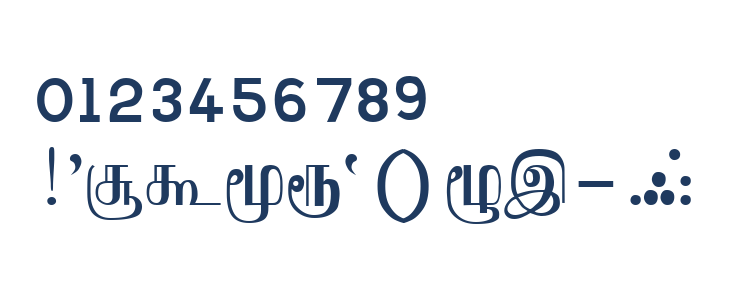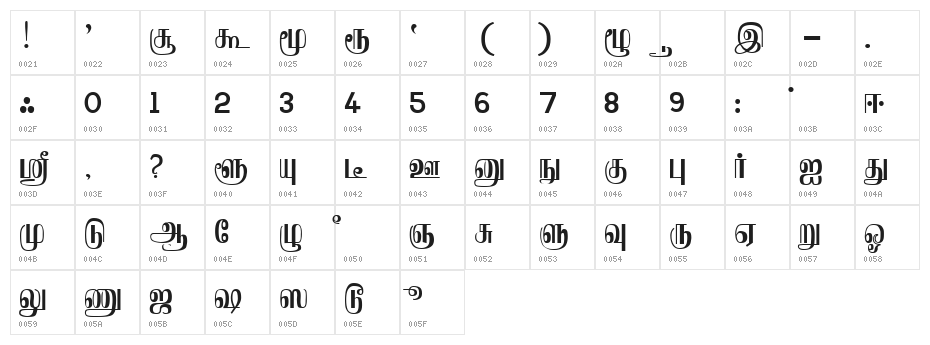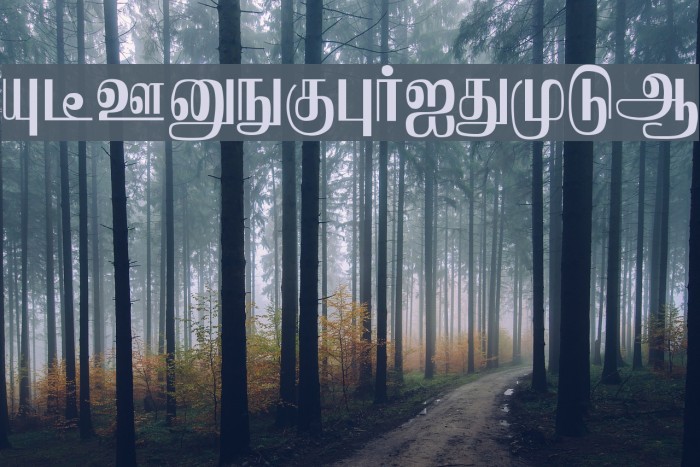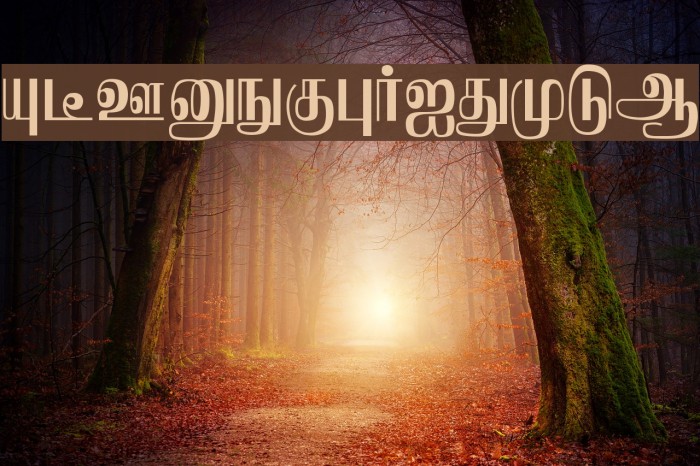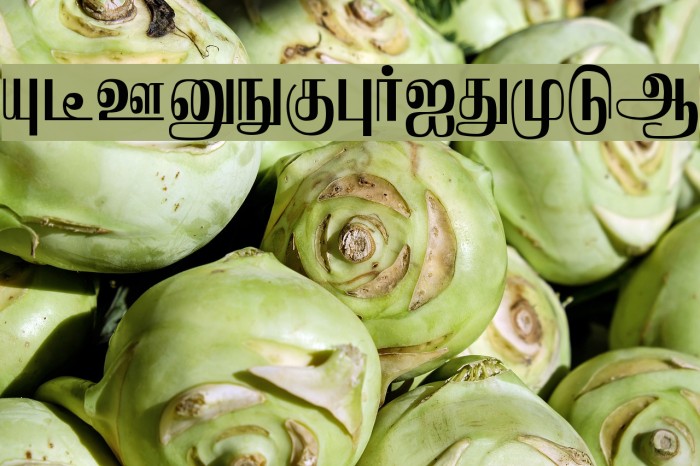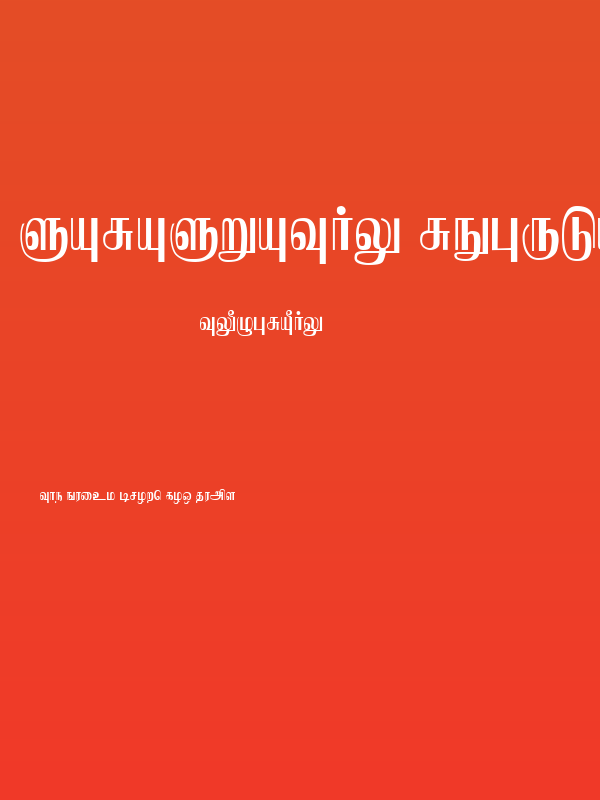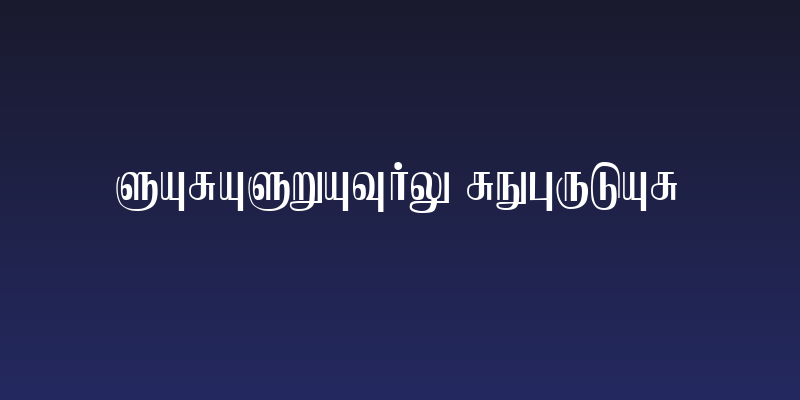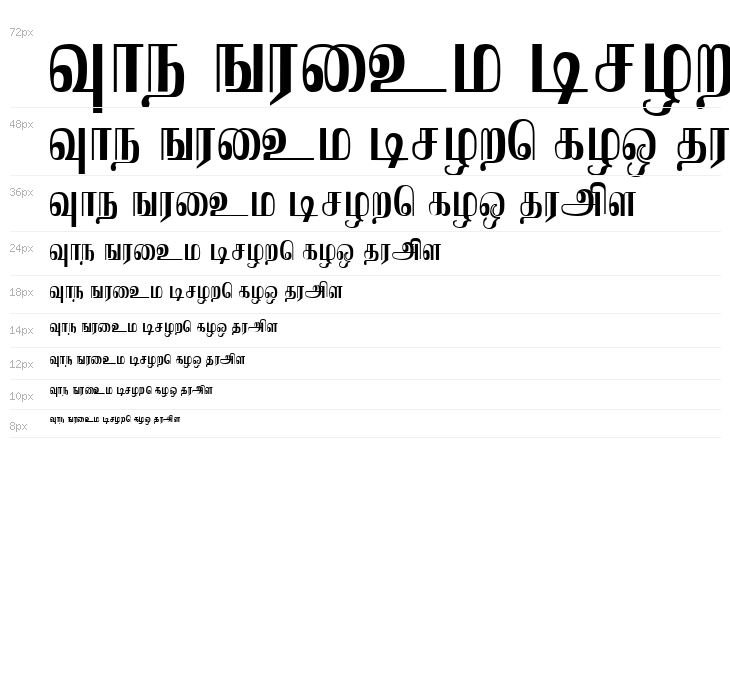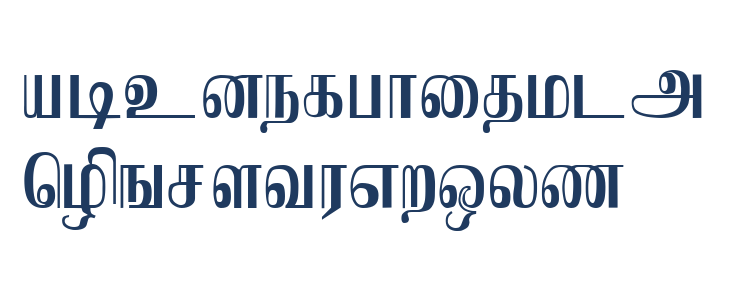
Saraswathy Regular Font
Saraswathy Regular Description
This font features a distinctive and elegant style, characterized by its clean lines and balanced proportions. The characters exhibit a harmonious blend of traditional and modern elements, making it versatile for various design applications. The numerals are bold and clear, ensuring readability, while the special characters add a unique flair. The overall design is both functional and aesthetically pleasing, suitable for a wide range of uses.
| Proposed Projects | Ideal for branding, editorial design, signage, and digital interfaces where clarity and style are paramount. |